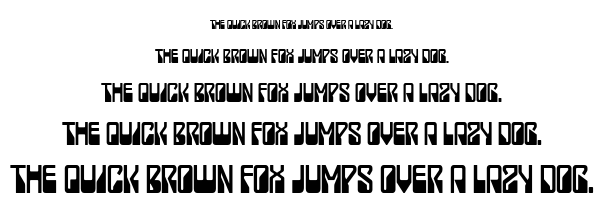
Lady Starlight is a 1970’s retro font inspired by the font used for the poster for the original Rollerball movie and the Scorpions band logo. Don’t forget to read the files inside the zip for details. Updated in 2012.